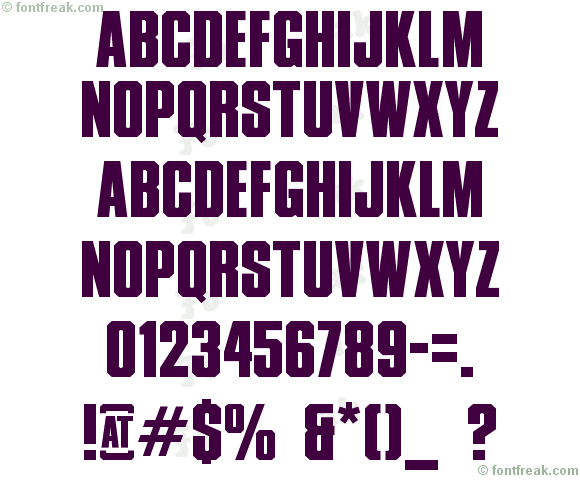
XXII DONT-MESS-WITH-VIKINGS-HARDCORE
About XXII DONT-MESS-WITH-VIKINGS-HARDCORE
The XXII DONT-MESS-WITH-VIKINGS-HARDCORE font by Lecter Johnson is a bold display typeface that captures the fierce spirit of Viking lore. With its thick stroke weight and minimal contrast, this font commands attention in any design context. The letters are tightly spaced, creating a cohesive look that enhances readability while maintaining a strong visual impact. The font features sharp, angular edges, evoking a sense of strength and ruggedness, making it ideal for themes related to adventure, fantasy, or even historical narratives.
This font is particularly well-suited for a variety of use cases. It can elevate the design of movie posters, especially those in the action or adventure genres, where a bold statement is necessary. Additionally, it works wonderfully for merchandise branding, such as t-shirts or hats, appealing to fans of Viking culture or Norse mythology. Restaurant menus that focus on a thematic experience can benefit from its striking presence, creating an atmosphere of excitement and intrigue. Furthermore, graphic designers can use this font in promotional materials for events, festivals, or gaming conventions that demand an edgy aesthetic.
The target audience for XXII DONT-MESS-WITH-VIKINGS-HARDCORE includes graphic designers, small business owners, and content creators looking to infuse their projects with a sense of adventure and character. Its freeware license makes it accessible for personal and commercial use, making it a valuable asset for those on a budget.
What sets the XXII DONT-MESS-WITH-VIKINGS-HARDCORE font apart is its ability to evoke emotion and excitement through its design. It stands out in a crowded marketplace of typefaces, making it a compelling choice for anyone wanting to make a bold statement. For a unique aesthetic that embodies strength and adventure, look no further than the XXII DONT-MESS-WITH-VIKINGS-HARDCORE font free download.